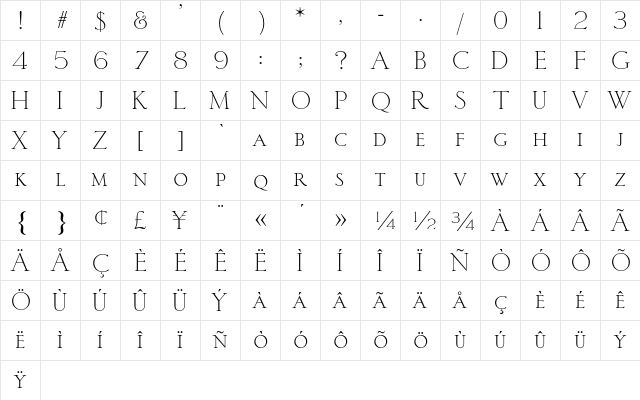
Sackers Classic Roman Light AT Regular
Design Context for Sackers Classic Roman Light AT Typeface
Sackers Classic Roman Light AT has the warm character of retro typography — evoking diners, record sleeves, and the golden age of print advertising. The delicate stroke weight brings airiness and refinement to layouts.
Font Pairing: Combine Sackers Classic Roman Light AT with a simple slab or neutral sans — period-accurate companions reinforce the vintage feel without competing for attention.
Pro Tip: Lean into Sackers Classic Roman Light AT's period character by pairing it with aged paper textures, muted colour palettes, and vintage illustration styles.